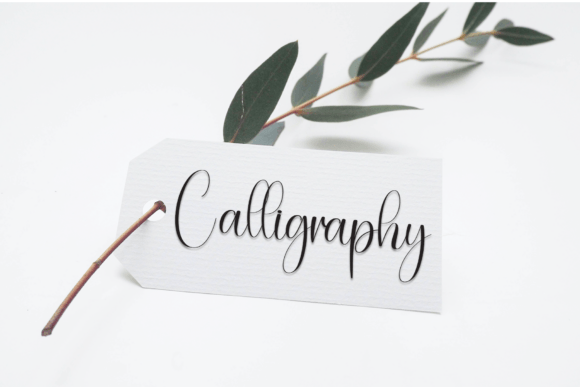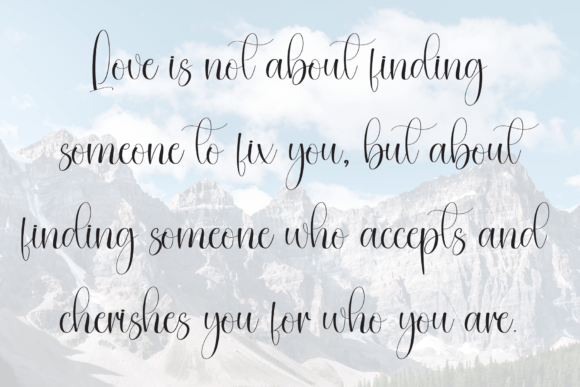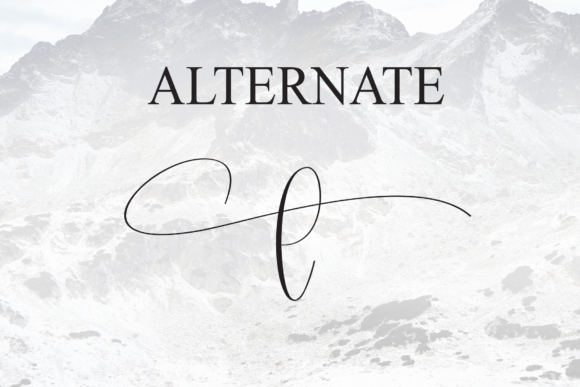
Introduction to Mountshield Font
Mountshield is a sweet and friendly handwritten font.
Key Features of Mountshield Font
Why Choose Mountshield Font?
Mountshield Font offers exceptional quality and versatility, making it a valuable addition to your design toolkit. Whether you’re creating for personal projects or commercial use, Mountshield Font delivers professional results.